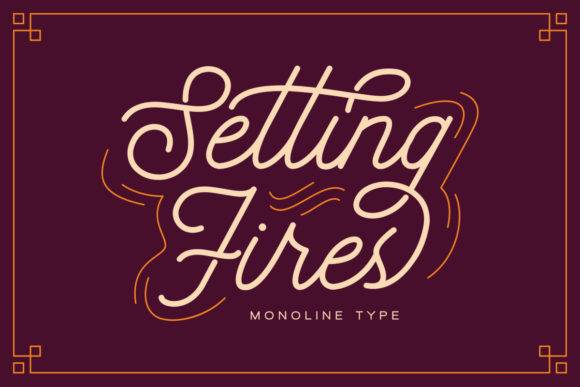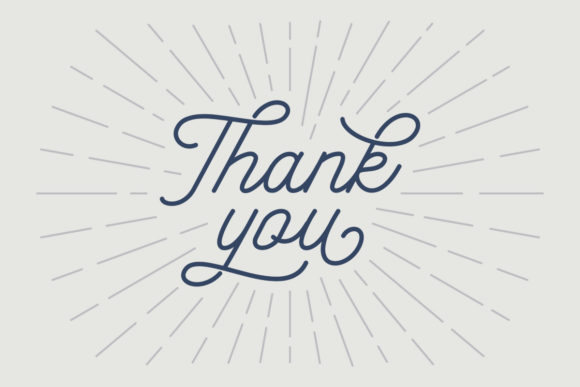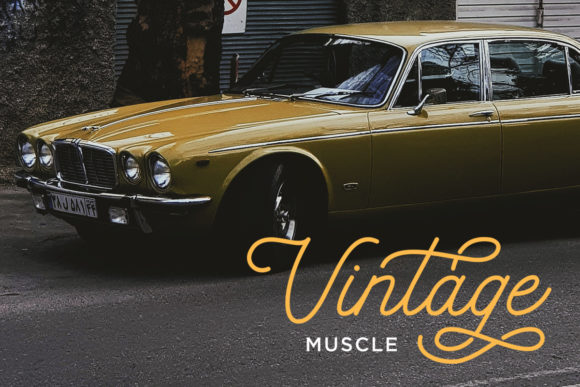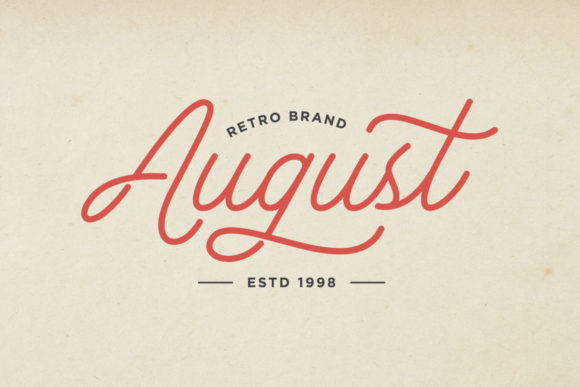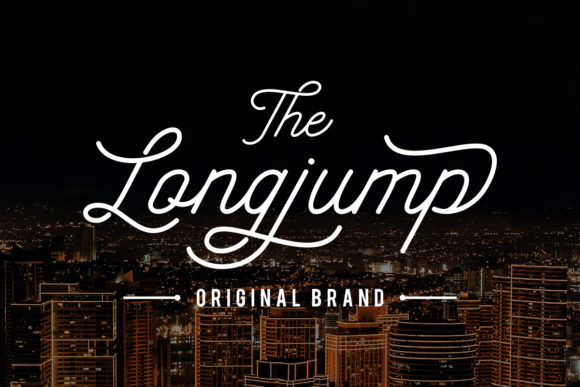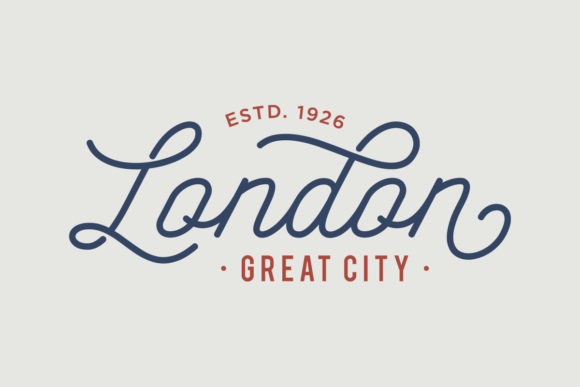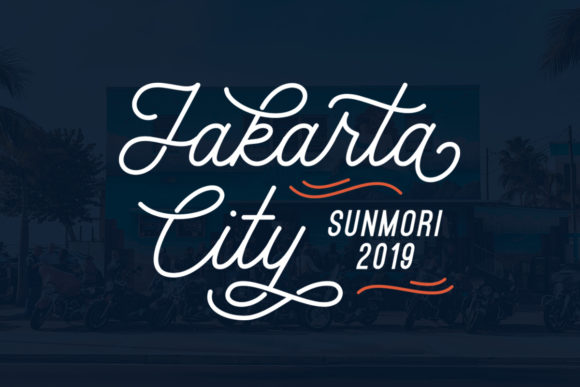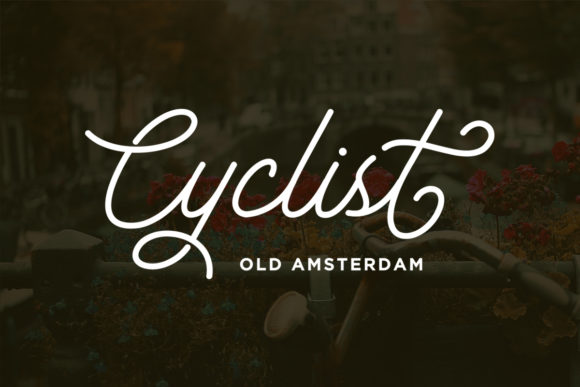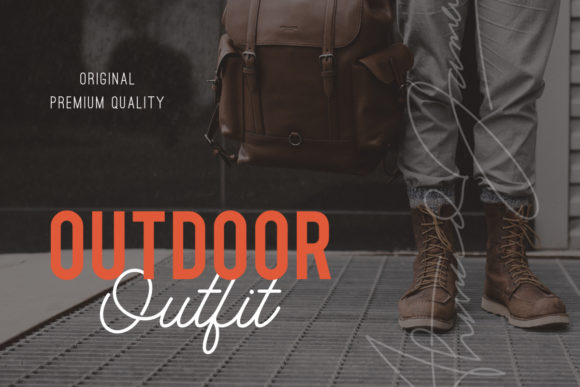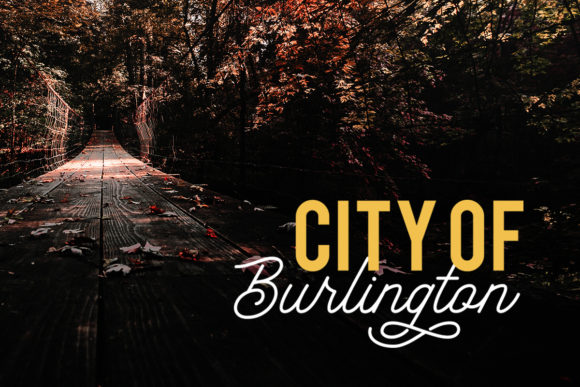
Setting Fires Font
About Setting Fires Font
The Setting Fires is a beautiful monoline typeface. This script font has a vintage style and is perfect for branding projects, logos, wedding designs, social media posts, advertisements, product packaging’s, product designs, labels, and much more!